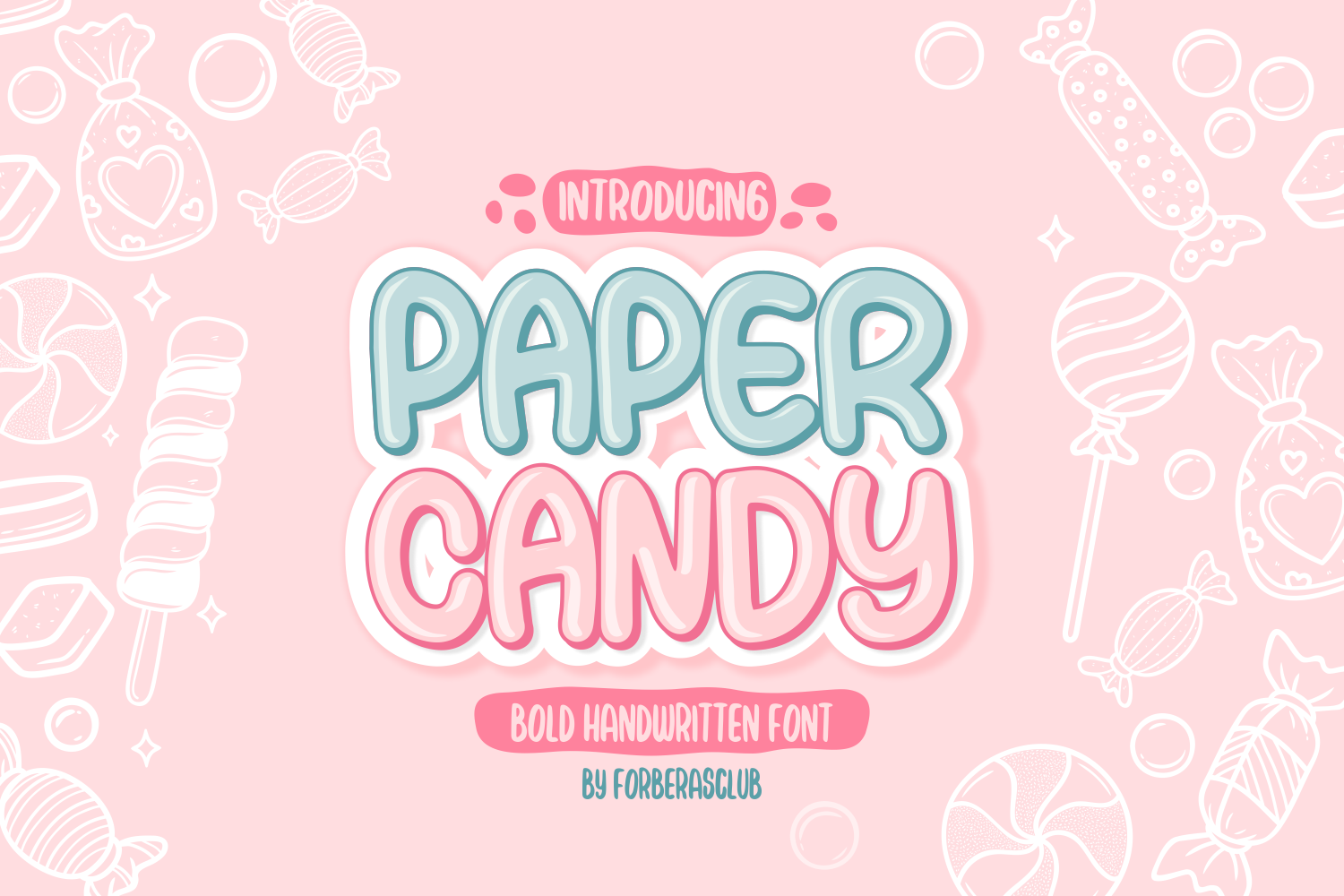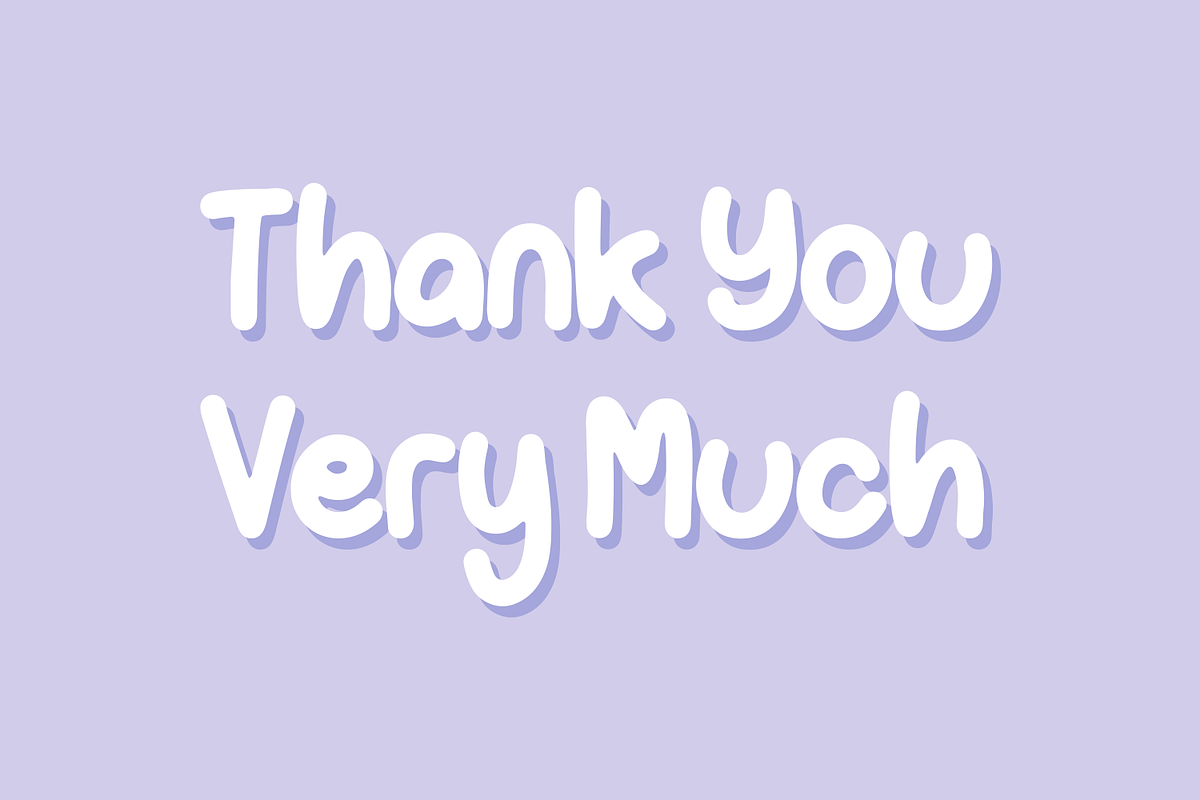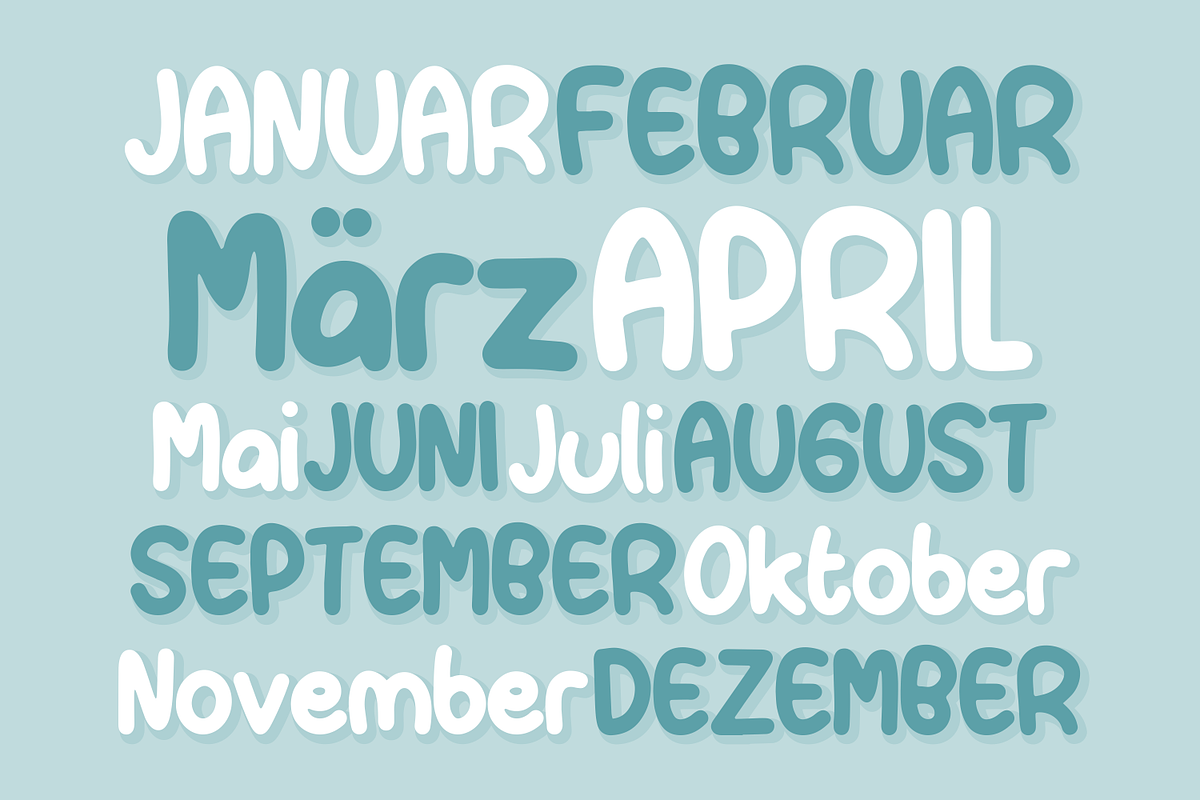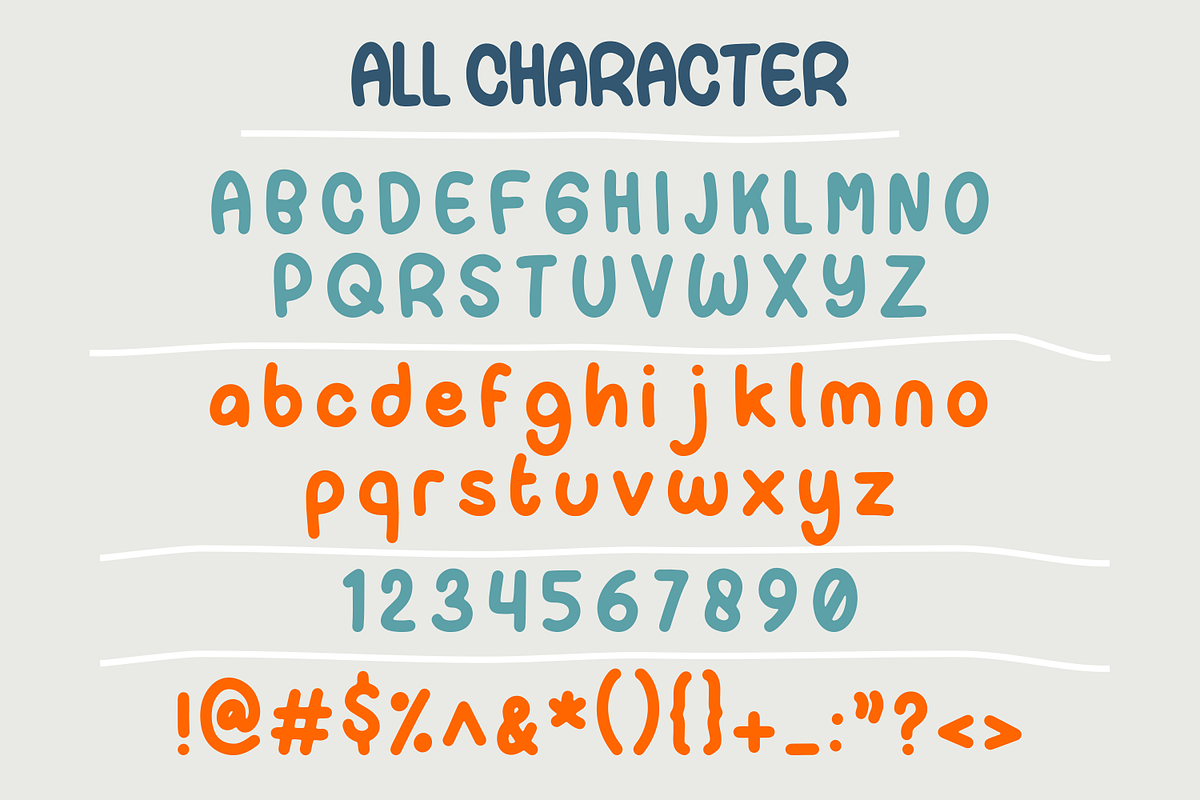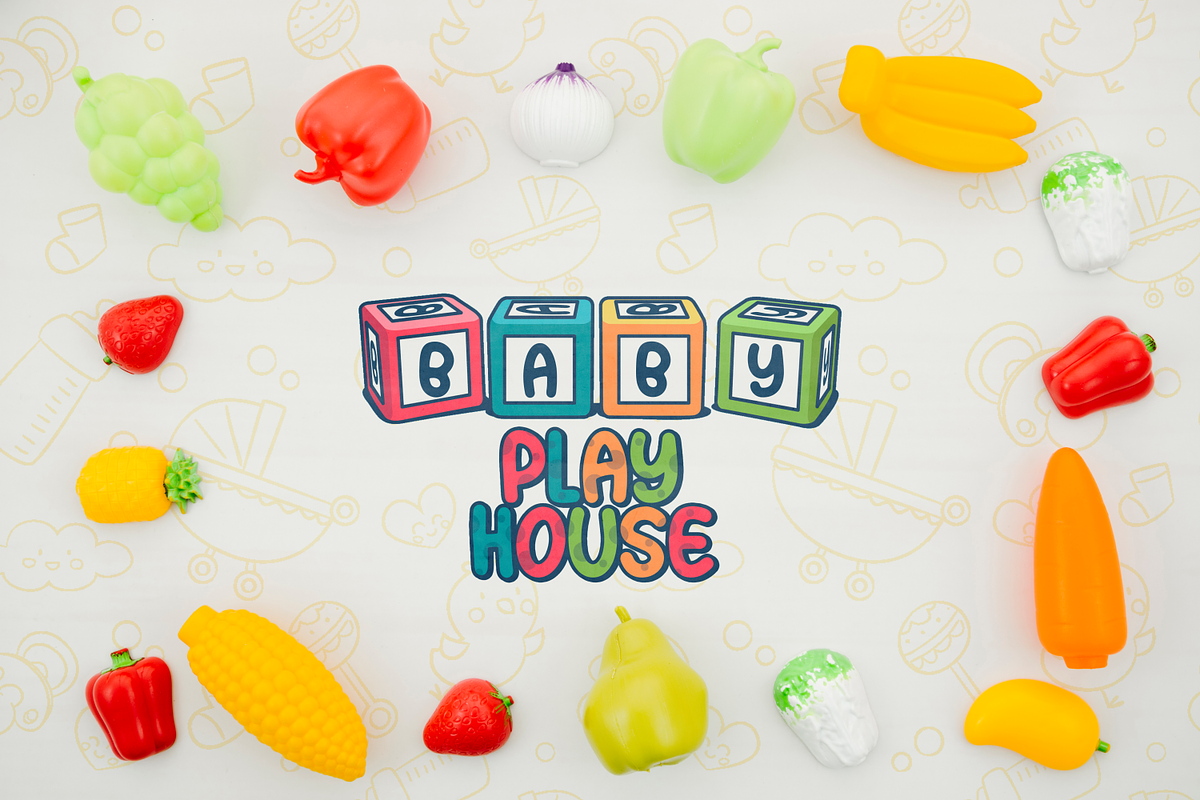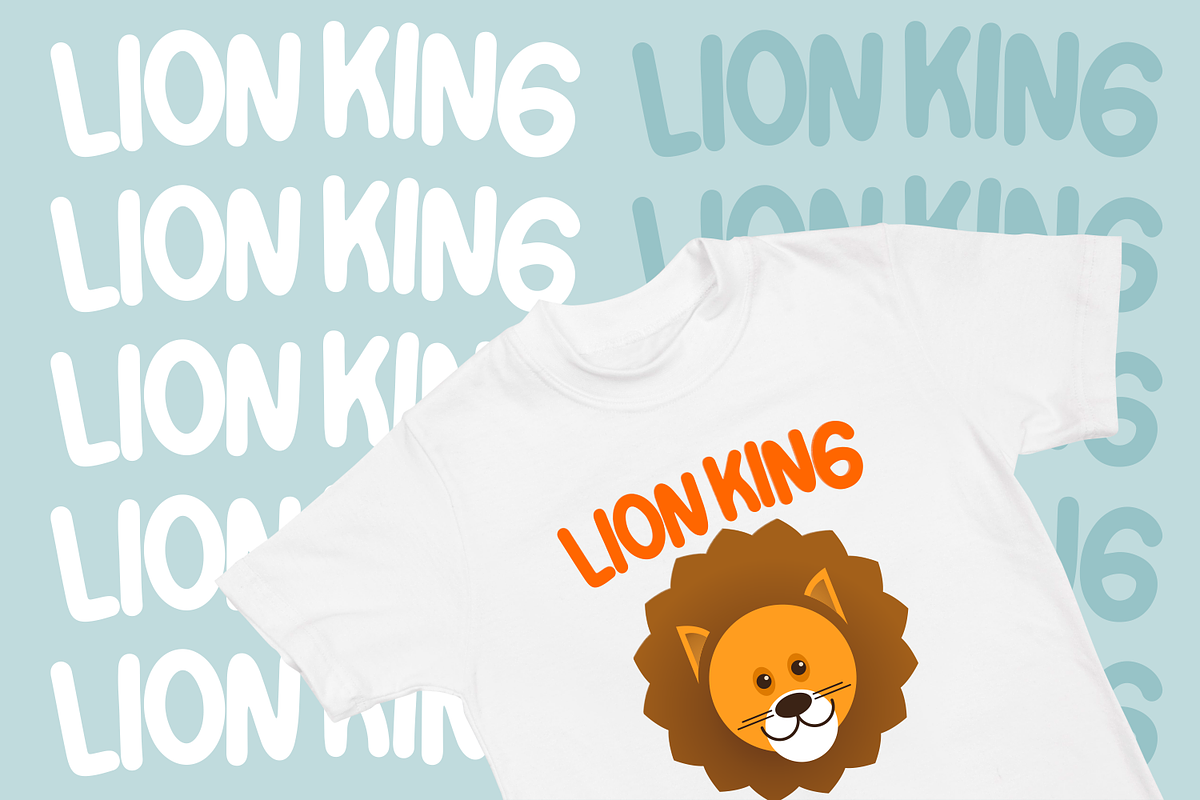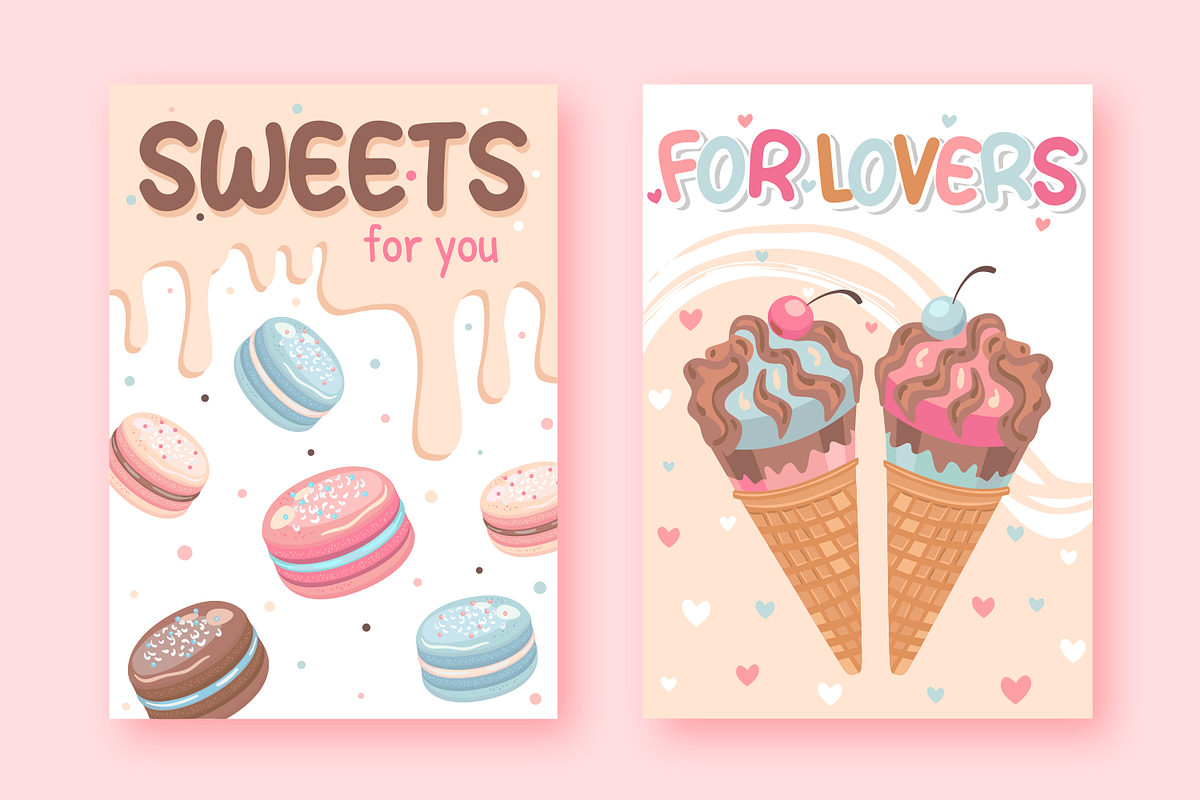
Papper Candy | Lovely Display Font
Introducing Papper Candy by Forberas
Modern and beautiful handwritten script font! Great for wedding greeting cards, logos, branding materials, Invitation, business cards, quotes, posters, Cricut artwork and more!